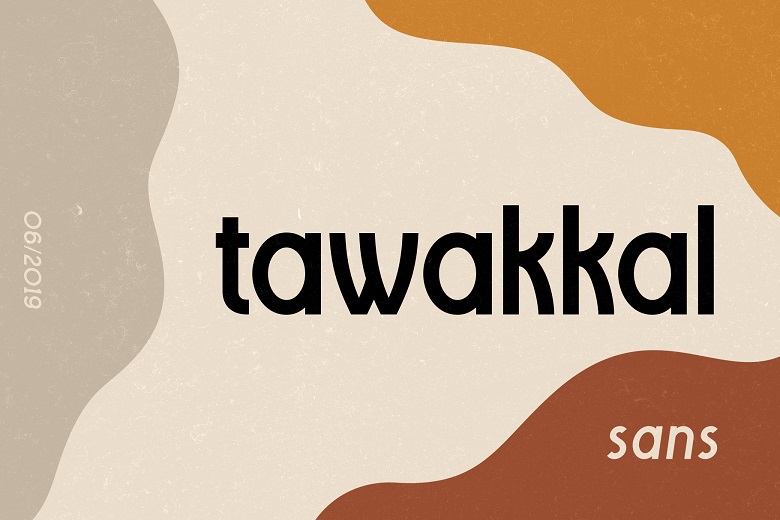
Tawakkal Sans Font
Hello Font Lovers! Tawakkal is a sans serif font which was designed with minimalistic and geometric style in mind. Introducing Tawakkal Font. It is design and shared by Twicolabs Fontdation, it was create and the logo font was developed by this company. In ‘techno’ aspect it is clean and curve with irregular shapes and in ‘classical’ aspect, it takes the aspect of old style typography all in one font.
Tawakkal Sans Serif Font